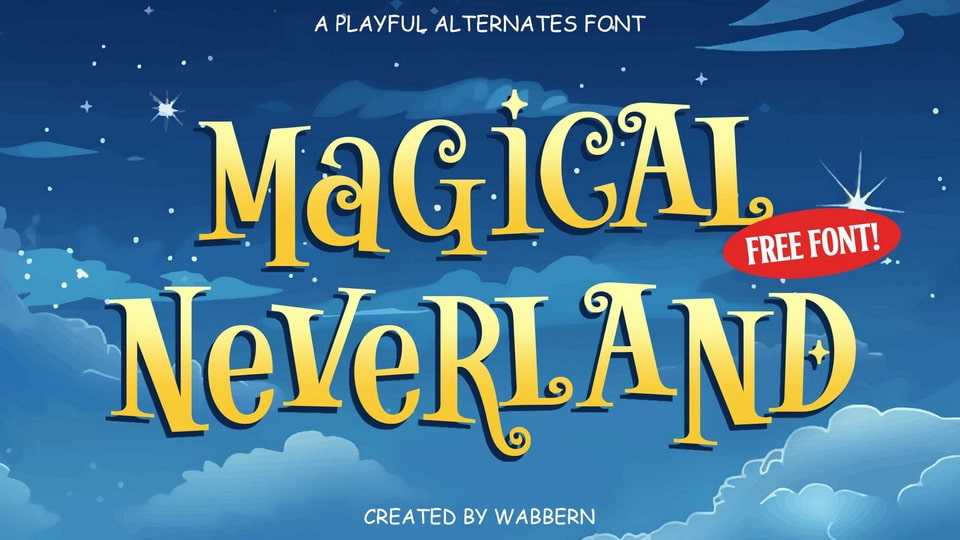
Download Magical Neverland font, a playful bouncy typeface, with tons of special characters. Inspired by fantasy books and movies, this font provide a cheerful taste for your design.